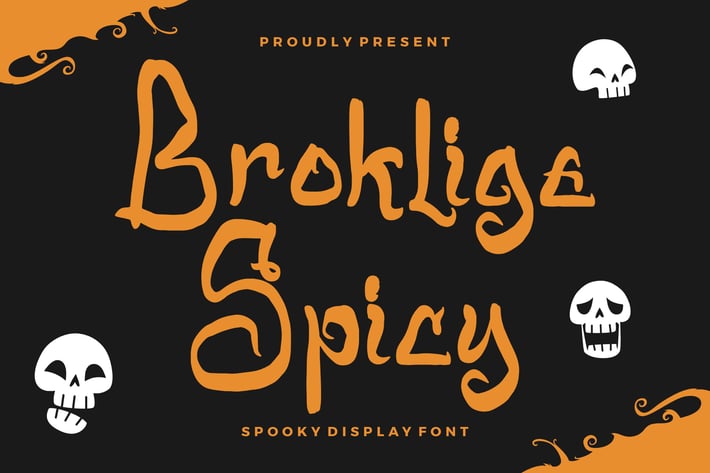
Broklige Spicy Spooky Display Font
Broklige Spicy is a playful spooky display font that perfectly captures the fun and eerie spirit of Halloween. Its irregular hand-drawn letterforms bring a whimsical yet creepy vibe — ideal for projects that need a mix of charm and fright. With bold strokes, quirky shapes, and decorative details, Broklige Spicy makes your titles and graphics stand out with personality.
Whether you’re designing a haunted house poster, Halloween invitation, game title, or themed merchandise, Broklige Spicy adds that touch of spooky excitement and creative flair.
Unique hand-drawn spooky display style
Uppercase & lowercase letters
Numerals & punctuation
Fun, irregular stroke design
Halloween Posters & Invitations
Game Titles
Spooky Branding & Logos
Children’s Books
Event Promotions
* Social Media Graphics
Get spooky and stylish — Broklige Spicy turns every word into a playful Halloween treat! 🎃